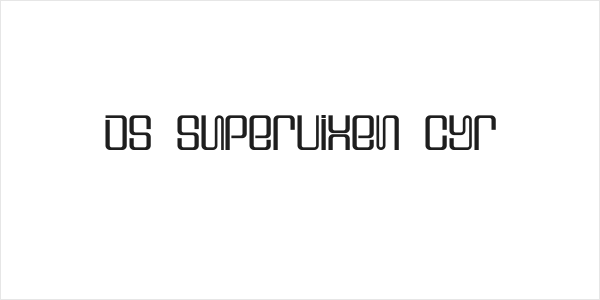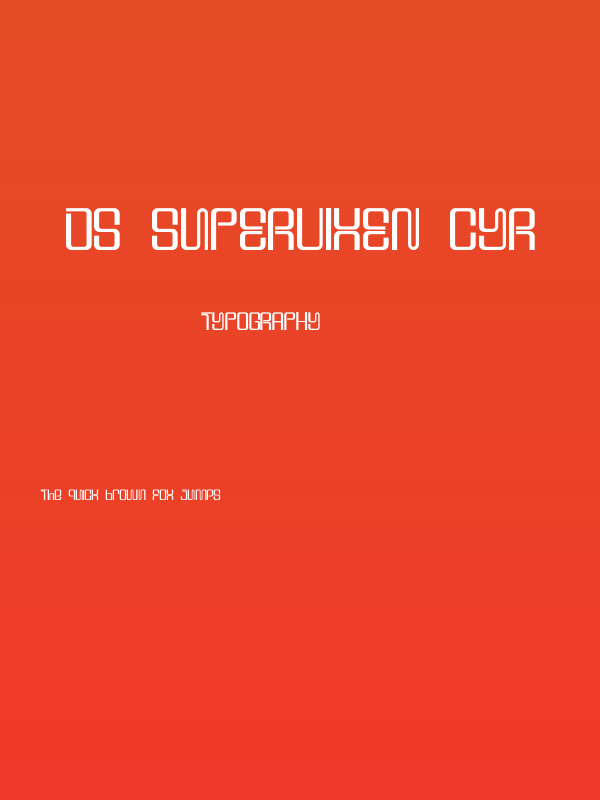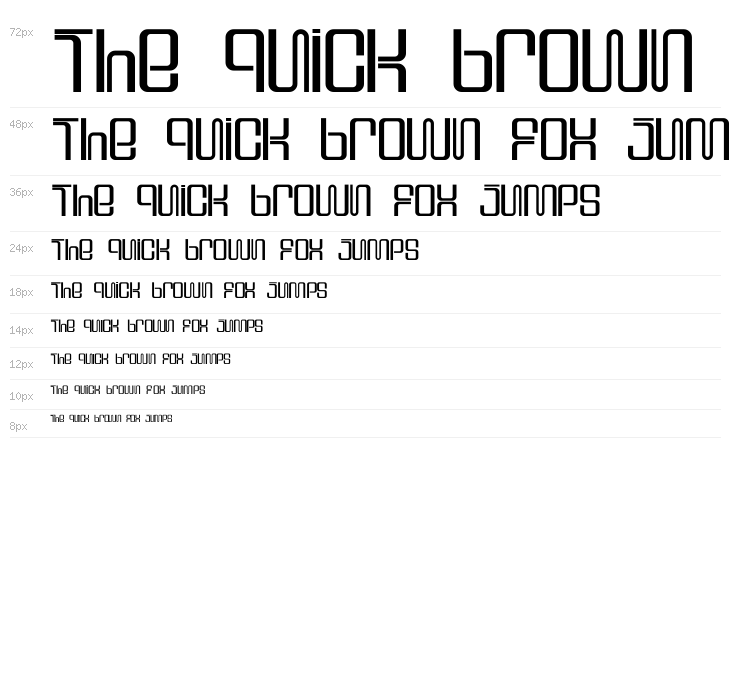
DS Supervixen Cyr Font
DS Supervixen Cyr Description
This font features a modern and futuristic design with a geometric structure. The characters are composed of bold, rounded edges and consistent line thickness, creating a uniform and cohesive appearance. The uppercase and lowercase letters maintain a similar height, contributing to a monospaced feel. The numerals are distinct and easily readable, while the special characters blend seamlessly with the overall style. The font's clean and minimalistic design makes it suitable for contemporary projects that require a sleek and professional look.
| Use Case | Headlines, Logos, Digital interfaces |
| Proposed Projects | Ideal for tech branding, futuristic designs, digital interfaces, and modern advertising. |